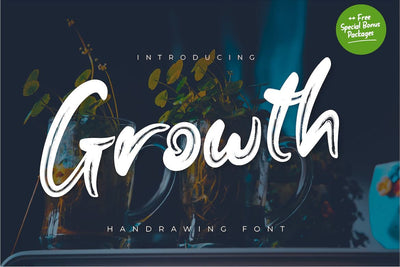
Growth
Growth is a bold and thick lettered display font, created with the help of a brush pen. Fall in love with its incredibly versatile style and use it to create spectacular designs!
This font will turn any creative idea into a true piece of art,
this font is perfect for strong text with displays for a wide variety of branding, advertising, posters, banners, packaging, headlines, outdoor activity, websites, logo design, and more.